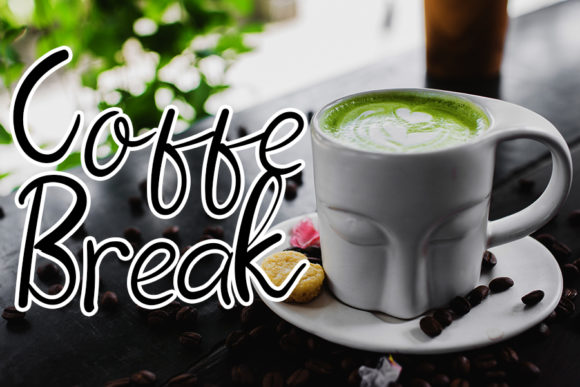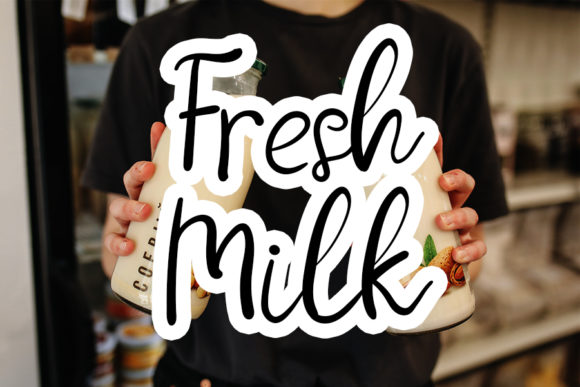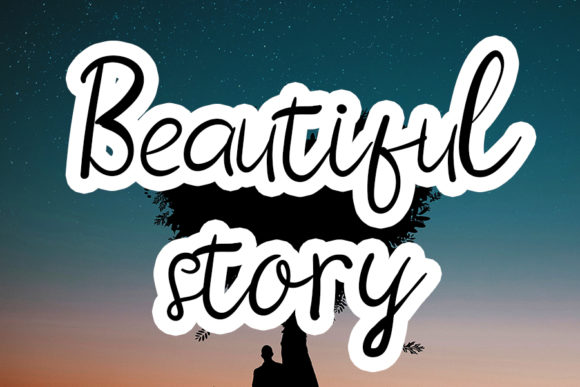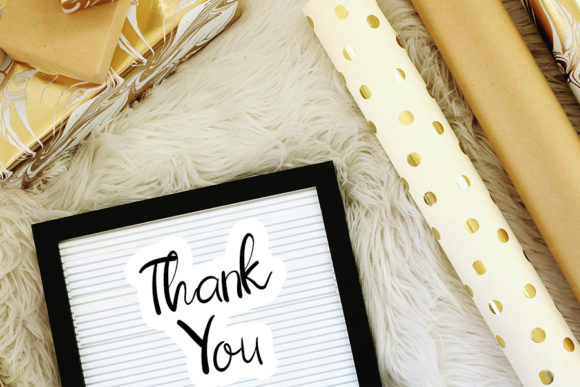
The Perfect Match: Unlocking the Beauty of Honeymoon Font
Have you ever sat at your desk, staring at a blank page, and felt an overwhelming urge to create something beautiful? For designers, this moment is a familiar sensation – a spark of inspiration that can ignite a new project. And for those looking to add a touch of romance to their designs, there’s one font that’s sure to sweep you off your feet: Honeymoon Font.
| 👤 Author | NYA Letter |
This charming handwritten font boasts a modern style that’s both sweet and sophisticated. Its well-rounded letters and distinct curves make it a masterpiece that’s perfect for a wide range of designs, from wedding invitations to social media graphics. Whether you’re a seasoned designer or just starting out, the Honeymoon Font is an invaluable tool that can help you create truly spectacular designs that capture the essence of your vision.
Honeymoon Font Key Features
- Font Family: Honeymoon is a modern calligraphy font with elegant and romantic feel.
- Character Count: The font includes over 400 glyphs, ensuring that you have a wide range of characters to work with.
- Unique Characteristics: Honeymoon font features beautiful swashes, flourishes, and ligatures that add a touch of elegance to your designs.
Honeymoon Font Review
I recently had the chance to work with the Honeymoon Font, and I must say it’s an interesting choice. Overall, I’d give it a solid 3.5 out of 5 stars.
- The Honeymoon Font has a unique, elegant touch to it. It’s perfect for wedding invitations, romantic greeting cards, or any other project that requires a touch of whimsy.
- The font is highly legible, making it easy to read even at smaller font sizes.
- The font family includes a range of weights and styles, giving users a lot of flexibility when it comes to customizing their designs.
- The font may be too ornate for some projects, making it difficult to read in certain contexts.
- The font family is relatively small, which may limit its usability for more extensive designs.
- The font’s unique style may not be to everyone’s taste, which could be a drawback for designers who prefer more traditional fonts.
Overall, I think the Honeymoon Font is a solid choice for designers who are looking for a unique, elegant font for their romantic projects. However, it may not be the best choice for designers who need a more versatile font that can be used in a wide range of contexts.
Use the Honeymoon Font in combination with other elegant fonts, such as serif fonts, to create a beautiful, sophisticated design. Experiment with different font sizes and styles to add visual interest to your design. Consider using the font in a circular or curved shape to add a touch of romance to your design.
The Honeymoon Font is perfect for:
- Wedding invitations and announcements
- Valentine’s Day cards and gifts
- Anniversary and engagement party invitations
- Wedding stationery and decor